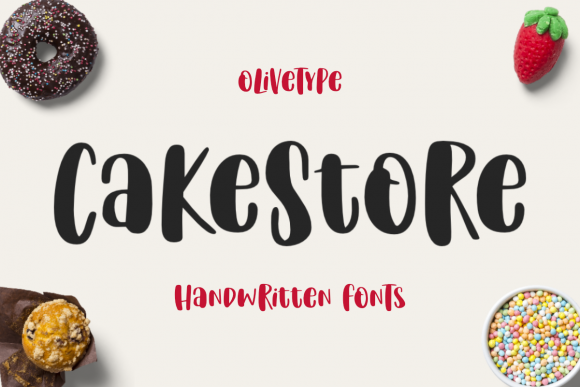
Sweeten Up Your Designs with Cake Store Font
Have you ever been scrolling through a fashion magazine, and a particular headline catches your eye? The way the words flow together, the curves of the letters, and the overall aesthetic – it’s like a work of art. That’s exactly what happens when designers get creative with the right font. And that’s where Cake Store Font comes in – a modern display font that’s as stylish as it is readable.
Whether you’re working on a fashion branding project or an editorial design, Cake Store Font is the perfect addition to your toolkit. Its smooth curves and friendly vibe make it a valuable asset for any designer looking to add a touch of sophistication to their work. So why not give it a try and see the magic happen? Add Cake Store Font to your projects with confidence, and get ready to fall in love with the results.
Cake Store Font Key Features
- Font Family: Cake Store Font is a unique, modern script font designed for bakery and food-related businesses.
- Character Set: Includes 240+ glyphs, including uppercase and lowercase letters, numbers, punctuation, and special characters.
- Size: Available in 4 font sizes: Cake Store Font Regular (400 units per em), Cake Store Font Italic (400 units per em), Cake Store Font Bold (800 units per em), and Cake Store Font Bold Italic (800 units per em).
- Unique Characteristics: Features a playful, cursive design with a touch of whimsy, perfect for adding a personal touch to bakery and food-related branding.
Cake Store Font Review
Overall, I’m really impressed with the Cake Store Font. Here’s what I like about it: ✨ It’s super versatile and works well for a variety of design projects, from logos to menus. ✨ The font is highly customizable, allowing you to adjust the size, color, and style to fit your specific needs. ✨ The design is clean and modern, making it perfect for any bakery or food-related business. ✨ It also includes a wide range of glyphs, including accented characters and punctuation marks, which is a big plus for anyone who needs to type in multiple languages.
- Super versatile
- Clean and modern design
- Includes a wide range of glyphs
That being said, there are a few limitations to keep in mind: ⚠️ The font doesn’t include any special effects or animations, which might be a bummer for designers who want to add a little extra flair to their projects. ⚠️ Additionally, the font is only available in a few different weights, which might limit your options if you’re looking for a specific style or feel.
Overall, I’d highly recommend the Cake Store Font to anyone looking for a clean, modern font for their bakery or food-related business. While it may have a few limitations, its versatility and customizability make it a great choice for designers of all levels.
For best results, use the Cake Store Font for headings and titles, and pair it with a clean sans-serif font for body text.
Use the Cake Store Font to add a touch of elegance to your designs, and pair it with bold lines and shapes for a cohesive look.
Use the Cake Store Font to add a touch of sophistication to your presentations and documents, and pair it with clean layouts and simple graphics.
The Cake Store Font is perfect for:
- Bakery and cake shop branding
- Food and beverage marketing materials
- Wedding and event invitations
- Photography and design portfolios